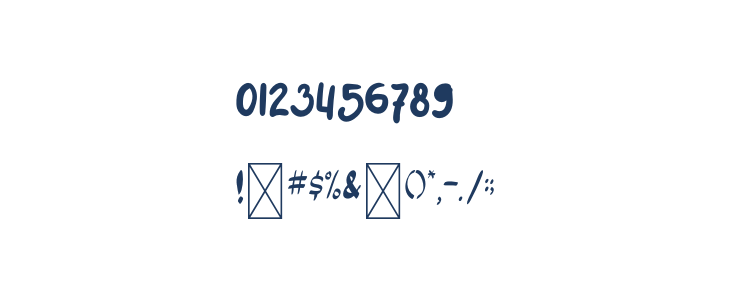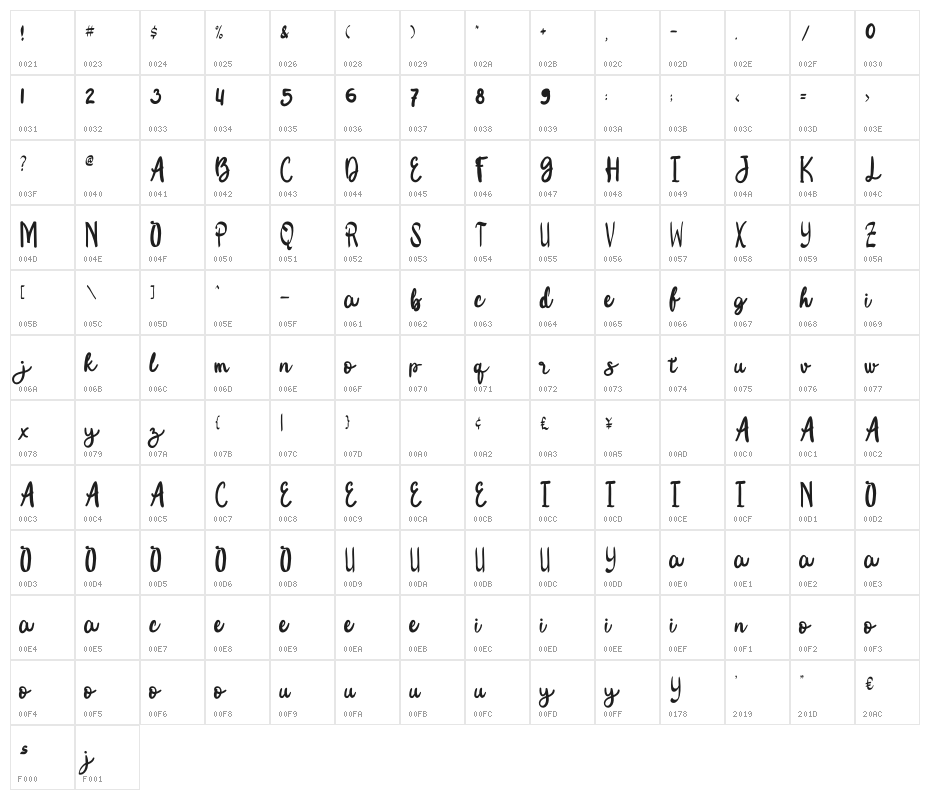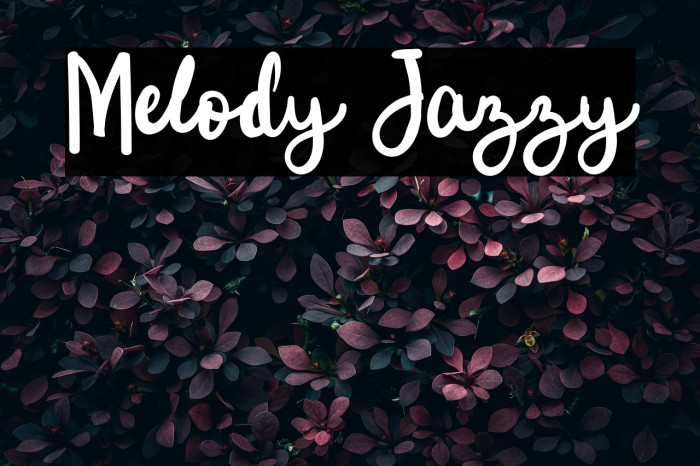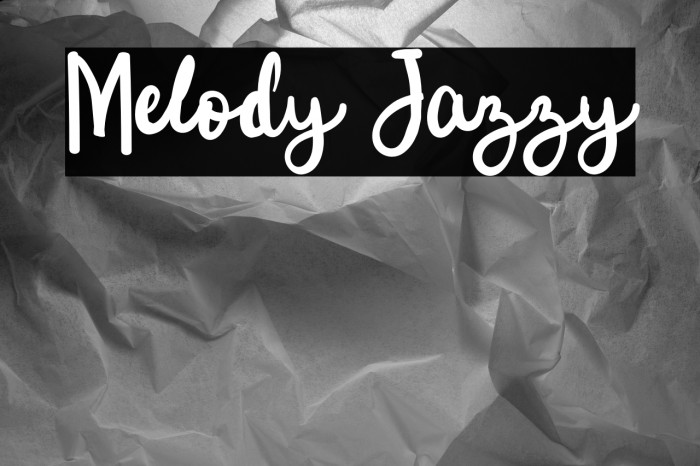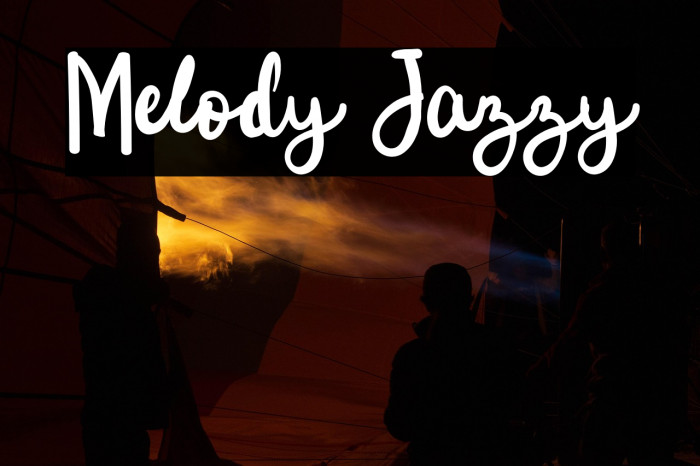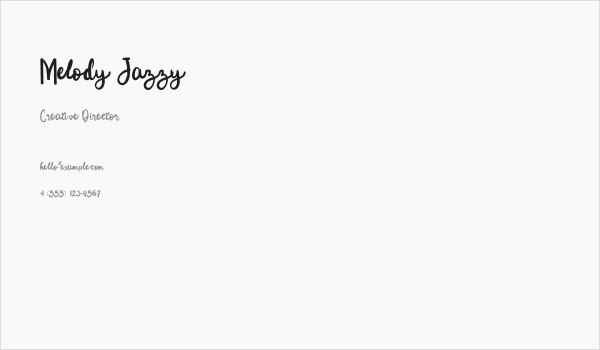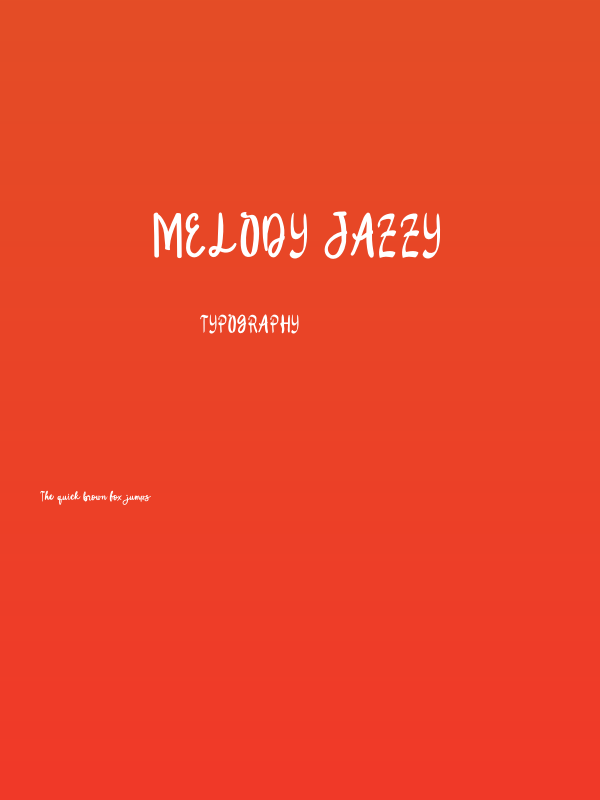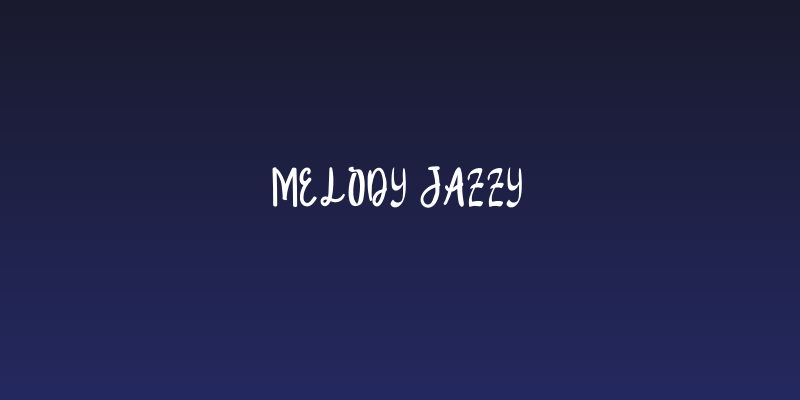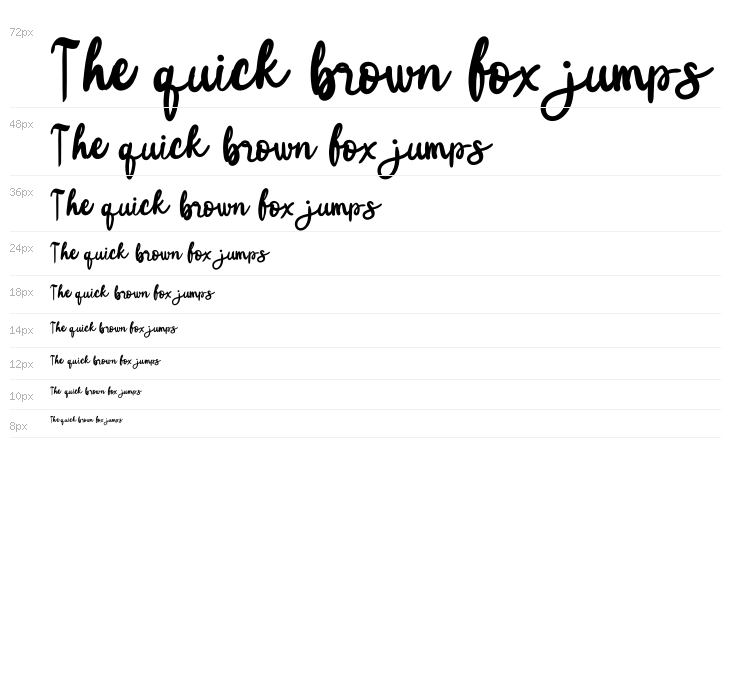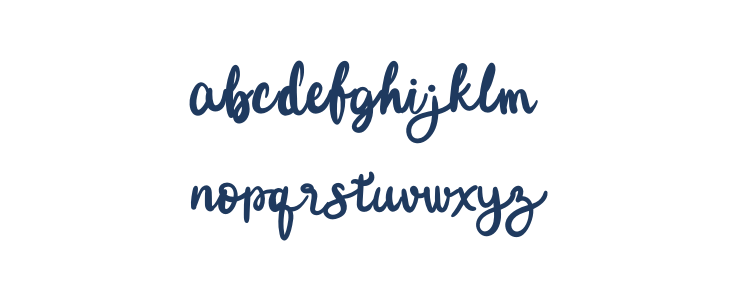
Melody Jazzy Font
Melody Jazzy Description
This font features a playful and energetic script style with a handwritten feel. The uppercase letters are bold and slightly irregular, giving them a lively and dynamic appearance. The lowercase letters maintain a consistent flow, with smooth curves and loops that enhance the font's whimsical character. The numbers are bold and clear, matching the overall style of the letters. Special characters are creatively designed, adding to the font's unique personality. This font is perfect for projects that require a touch of fun and creativity.